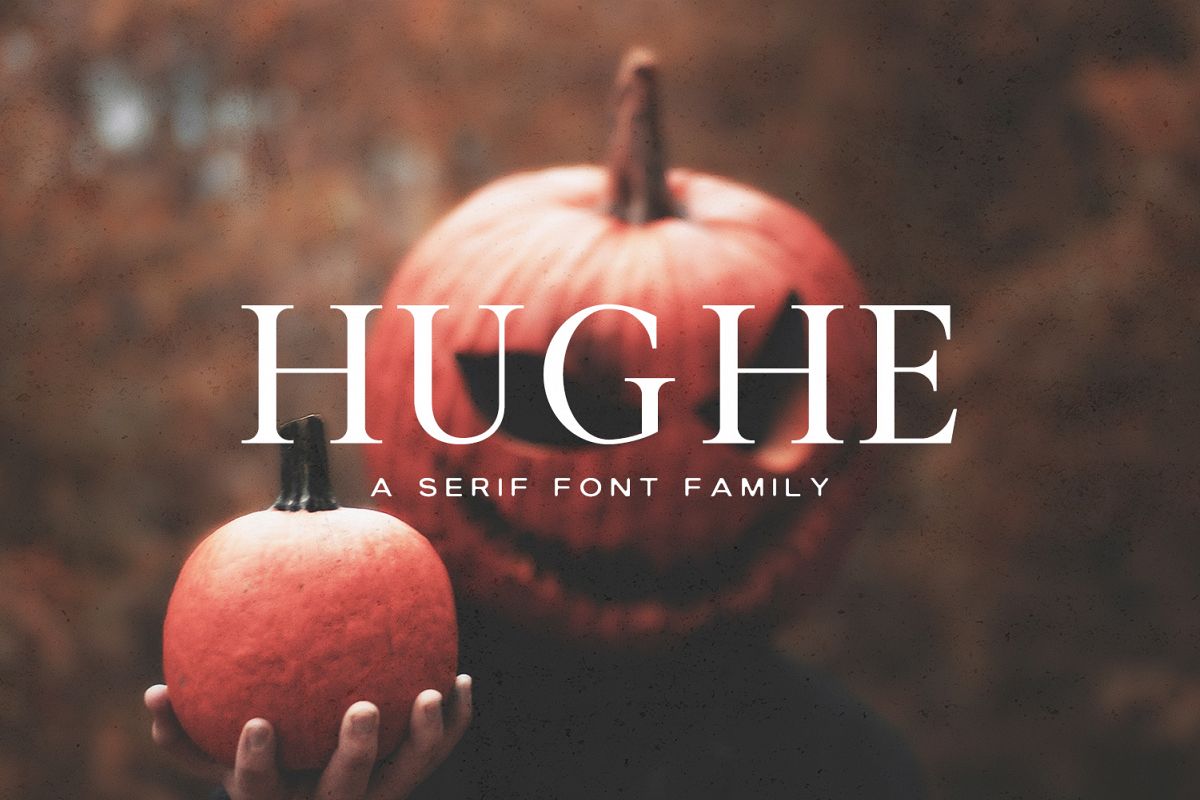
Hughe Serif Font Family
Hughe-Bold
Hughe-Light
Hughe-regular
Hughe-Round
Hughe-Smooth
Hughe is an astonishing all-round serif typeface. It includes all basic glyphs and support multilingual characters. You can use it for your next handcrafted projects like: flyer, posters, banner, illustration, presentations, logo, horror, quotes, titles, magazines headings, web layouts, advertising, invitations, packaging design, CD cover, books, Christmas, Halloween and nearly any creative design.
• Font Weight: Regular, Light, Round, Smooth and Bold
Hughe Font Features:
• Uppercase Letters
• Lowercase Letters
• Non English Characters ( Latin Supplement + Latin Extended A)